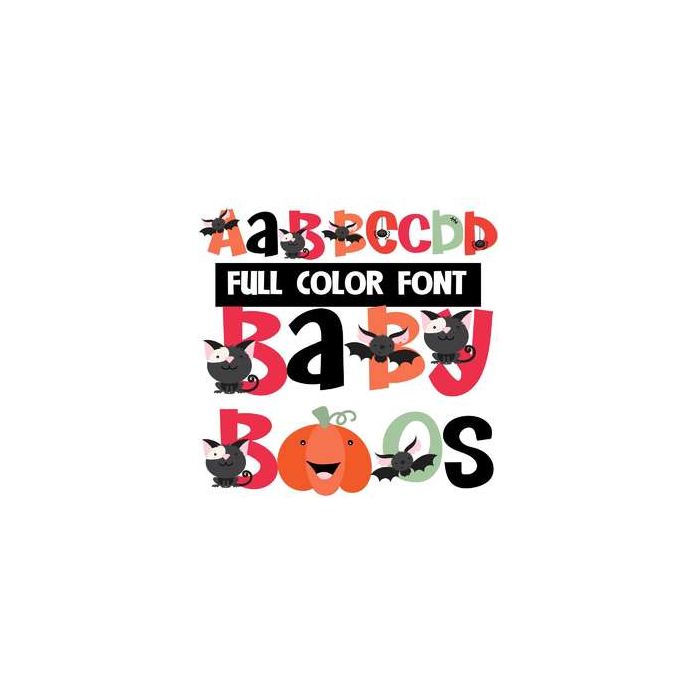
This full-color font features cute baby bats, cats, spiders, and pumpkins. This font works best for titles, displays, posters and more. Please note color fonts will show as black in non compatible programs. This font type is compatible with Silhouette Studio.